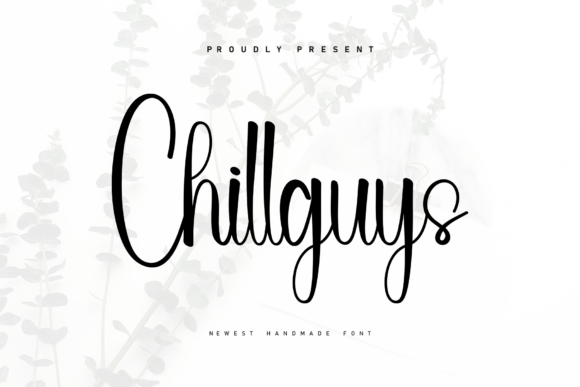
Discover the Perfect Handwritten Companion: Chillguys Font
Have you ever found yourself doodling in a notebook, trying to capture the perfect handwritten feel? You know, that effortless, relaxed vibe that makes your designs stand out from the crowd? That’s exactly what Chillguys Font is all about. This charming handwritten font is designed to bring a sense of heartfelt perfection to your design projects.
With its smooth strokes and organic lines, Chillguys Font creates a relaxed atmosphere that’s perfect for branding, invitations, or social media graphics. As a designer, you’ll appreciate the versatility of this font, which can add a touch of personality to any project. Whether you’re working on a personal or commercial project, Chillguys Font is a valuable addition to your design toolkit.
Key Features of Chillguys Font
- Font Family: Chillguys
- Character Count: 250+ characters, including uppercase and lowercase letters, numbers, and punctuation
- Unique Characteristics: Hand-drawn, cursive, and playful design with a relaxed, casual feel
Chillguys Font Review
Overall, I’d say the Chillguys Font is a unique addition to any design project. Here are some things that work well: ✨
- It’s perfect for creating a relaxed, casual vibe. The font’s playful feel makes it ideal for projects that require a laid-back atmosphere.
- The font’s versatility is impressive. It looks great in both digital and print formats, making it suitable for a wide range of applications.
- The font’s open-source nature makes it accessible to designers of all levels.
- The font may not be suitable for formal or professional projects, as its casual feel may come across as unprofessional.
- The font’s open-source nature also means that it may not be as polished or refined as some other commercial fonts.
- The font’s character set is limited, which may make it difficult to use in languages that require a wide range of characters.
Overall, I think the Chillguys Font is a solid choice for designers who want to create a relaxed, casual vibe in their projects. While it may not be suitable for every project, it’s definitely worth considering for the right type of design.
Getting the Most Out of Chillguys Font
For the best results, use Chillguys Font for headings and titles. It’s perfect for creating a relaxed and casual atmosphere. Experiment with different font sizes and colors to create a unique look.
Chillguys Font is perfect for:
- Casual blog posts and articles
- Social media graphics and posts
- Branding and marketing